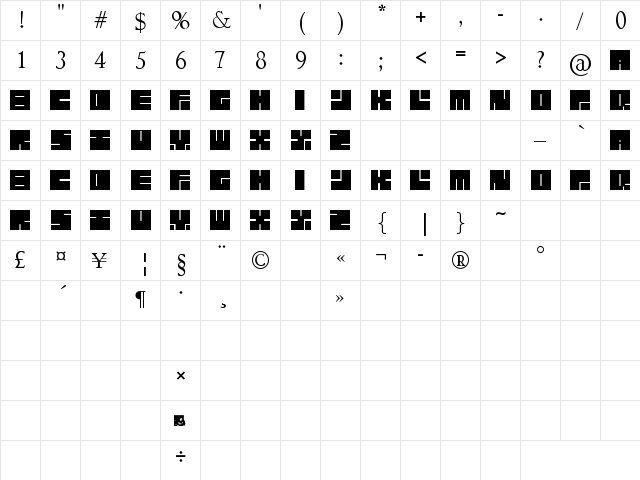
lettres carr?s Regular
Design Context for lettres carr?s Typeface
lettres carr?s is a composed and adaptable typeface that performs quietly and consistently across a wide range of design contexts.